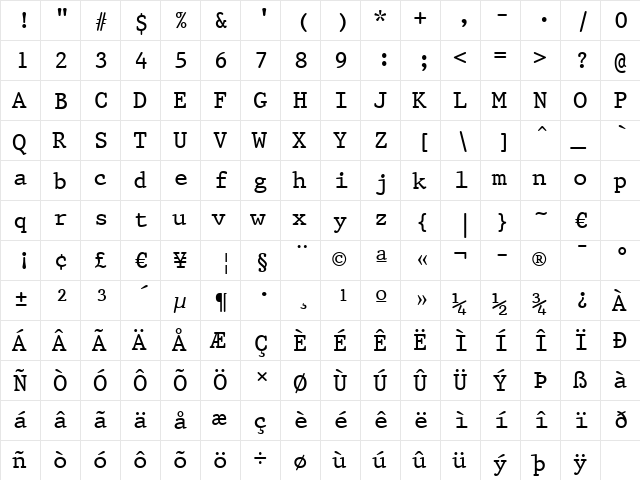
Prestige12 BT Roman
Design Context for Prestige12 BT Typeface
Prestige12 BT takes a measured approach to typography — its balanced proportions and neutral character make it a reliable workhorse for both digital and print work.